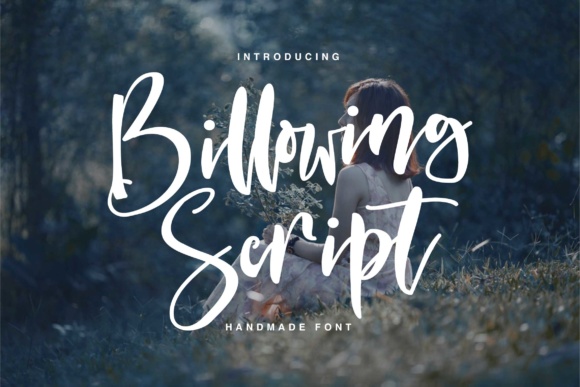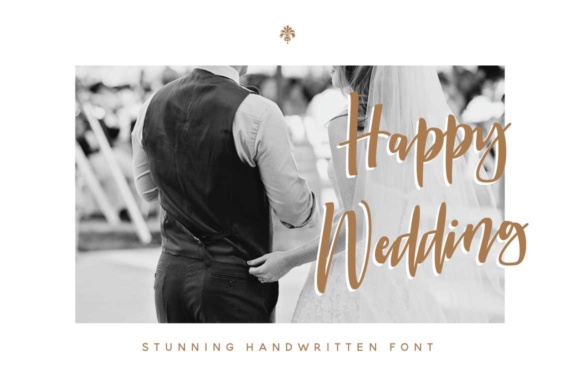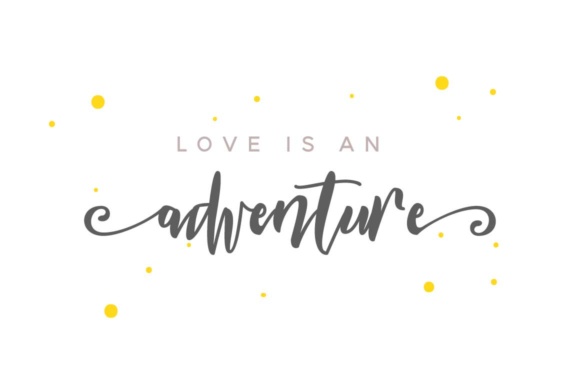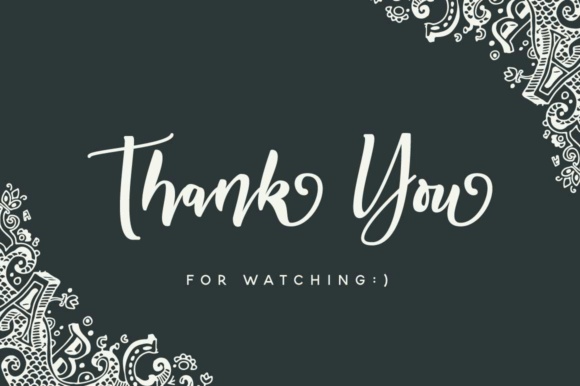
About Billowing Script Font
Billowing Script is a fresh handmade calligraphy font. It brings a combination of contemporary design into a copperplate typeface, giving it a classic & natural touch.
Billowing Script is suitable for Apparel Branding, greeting cards, Painting design style, or any design that needs a natural and personal touch. Mix and match the alternate characters to add an attractive message to your design.